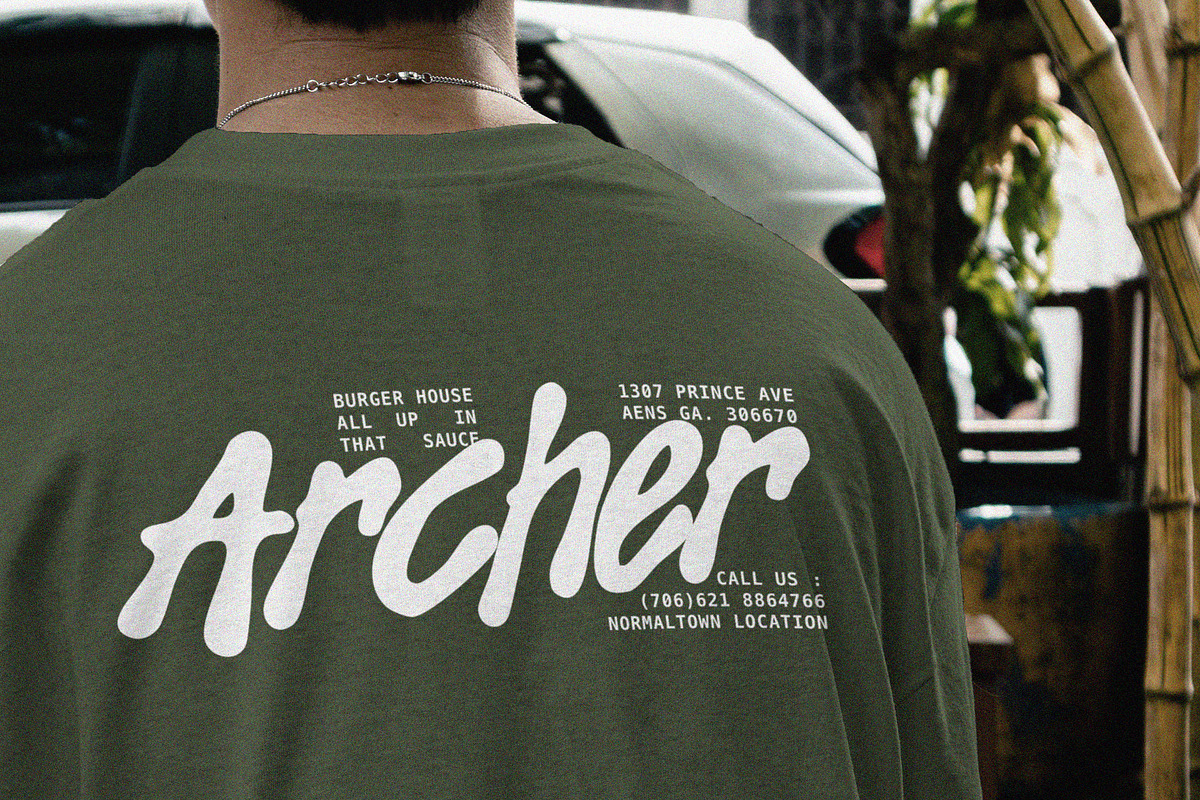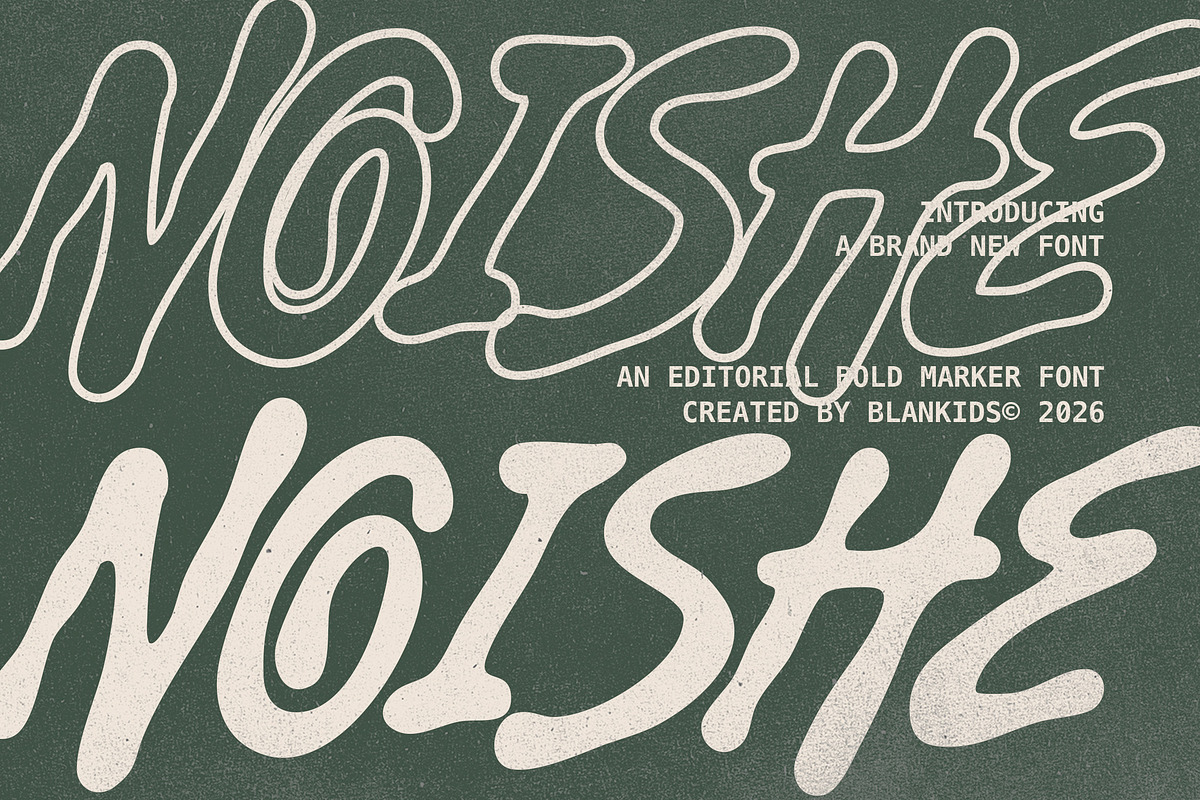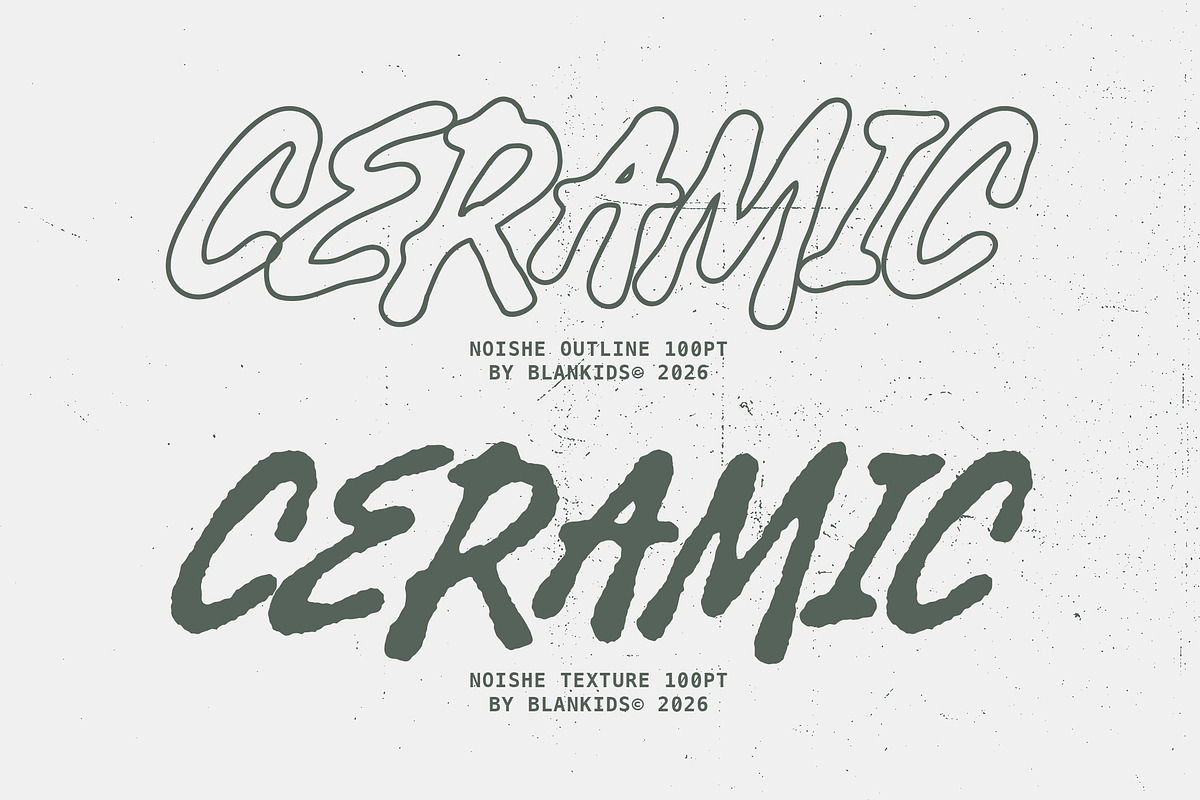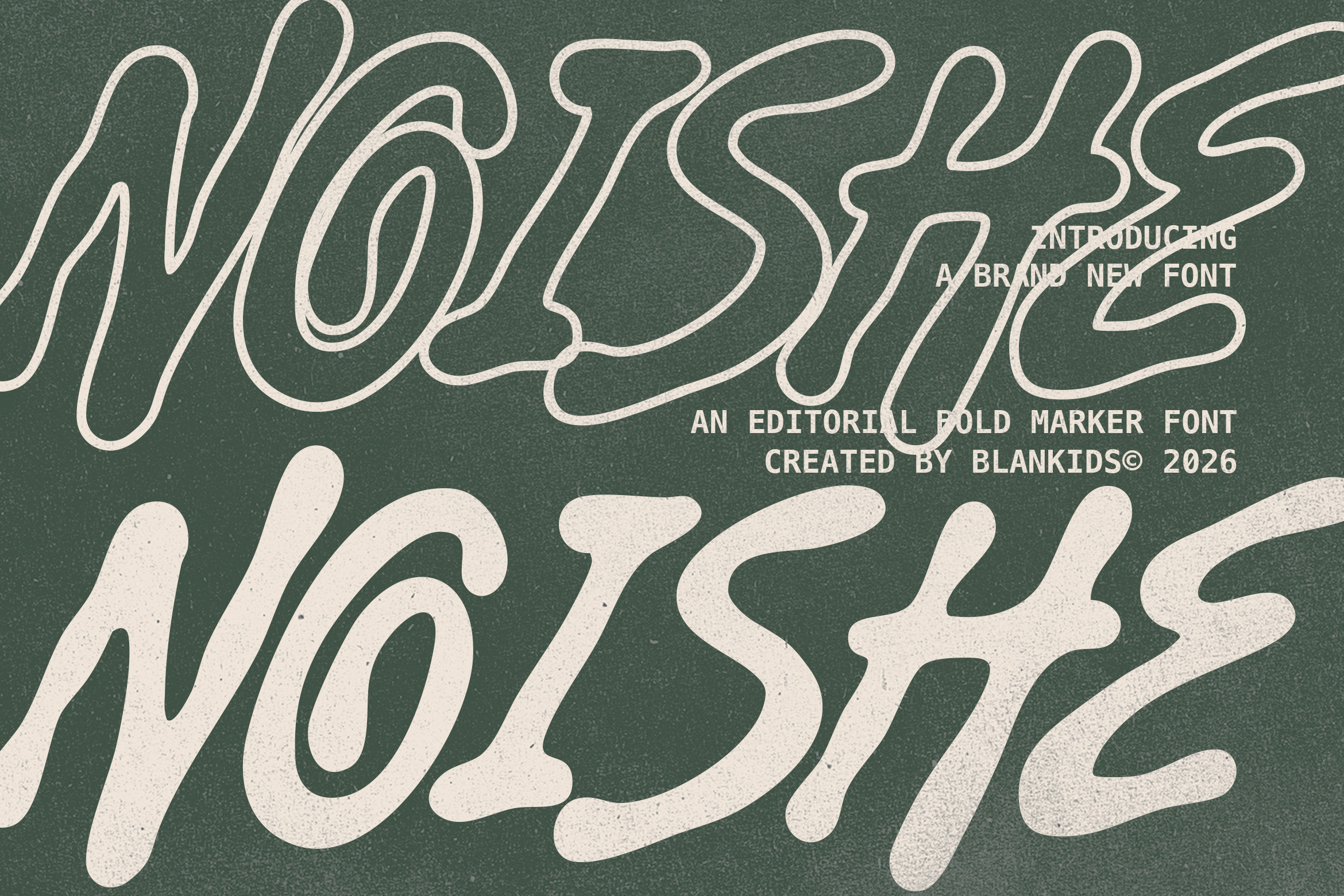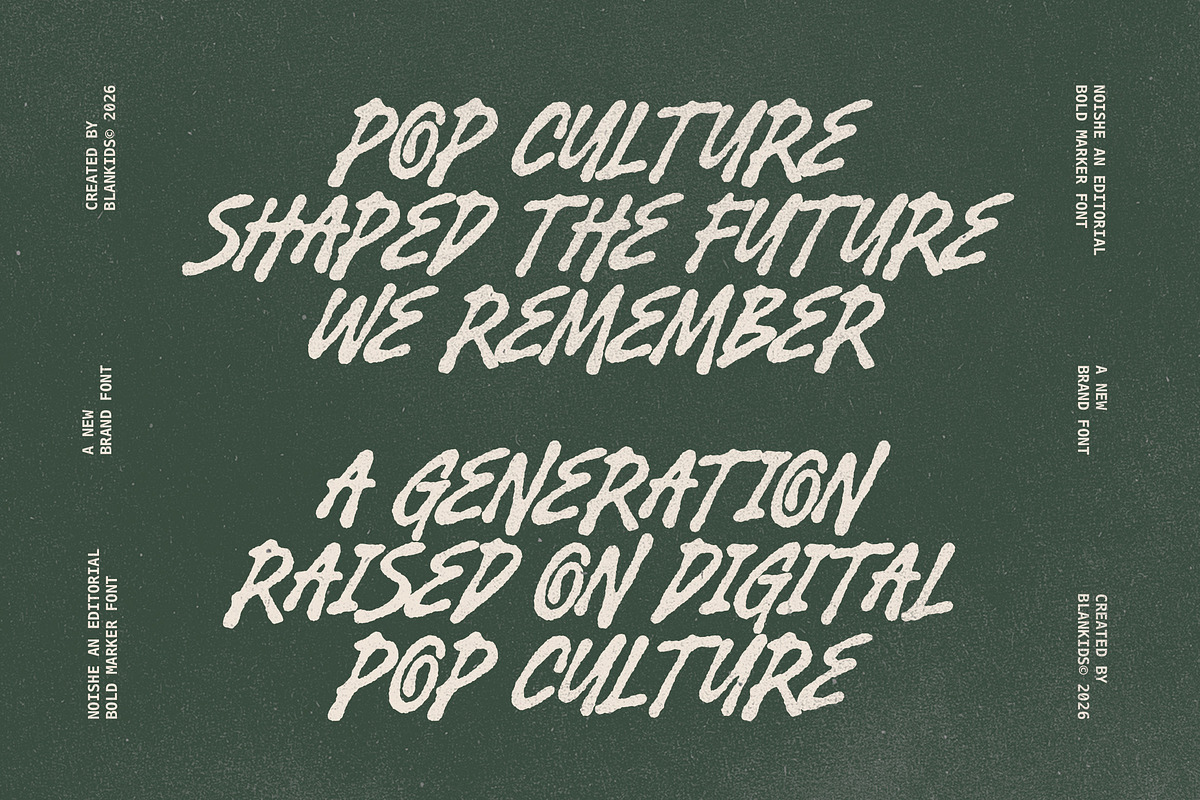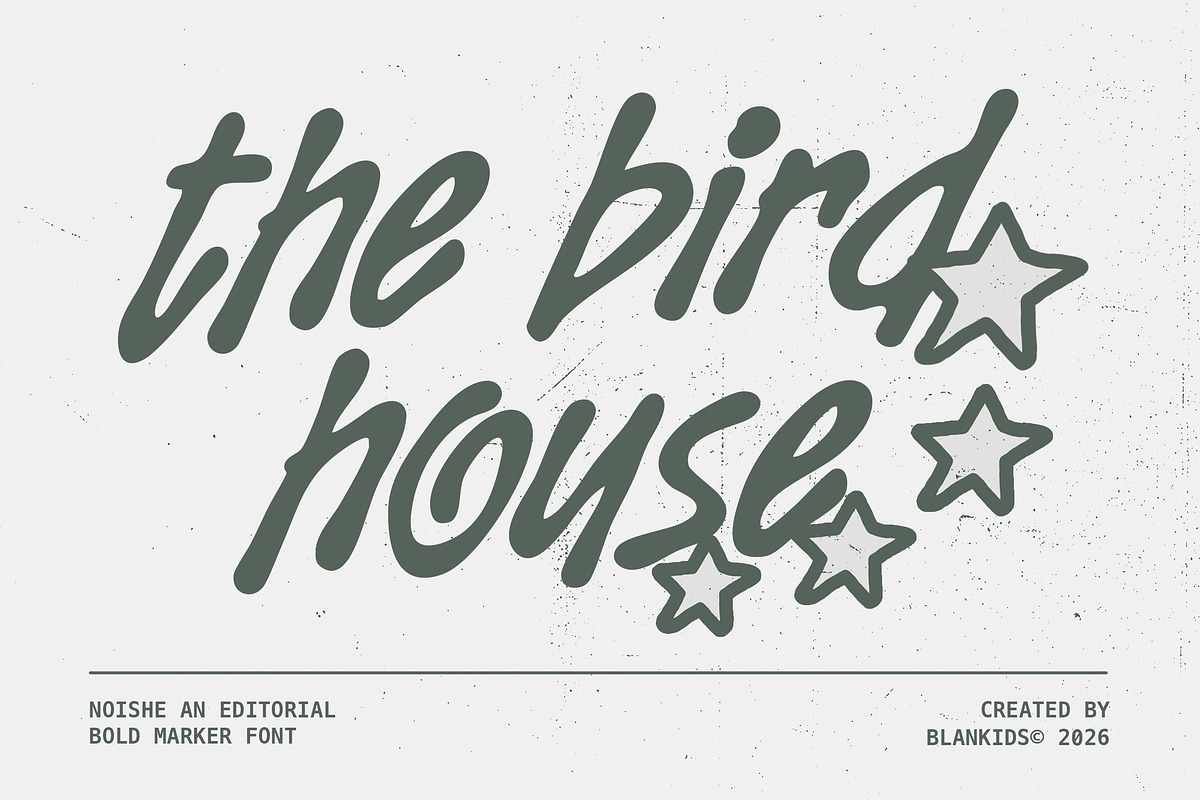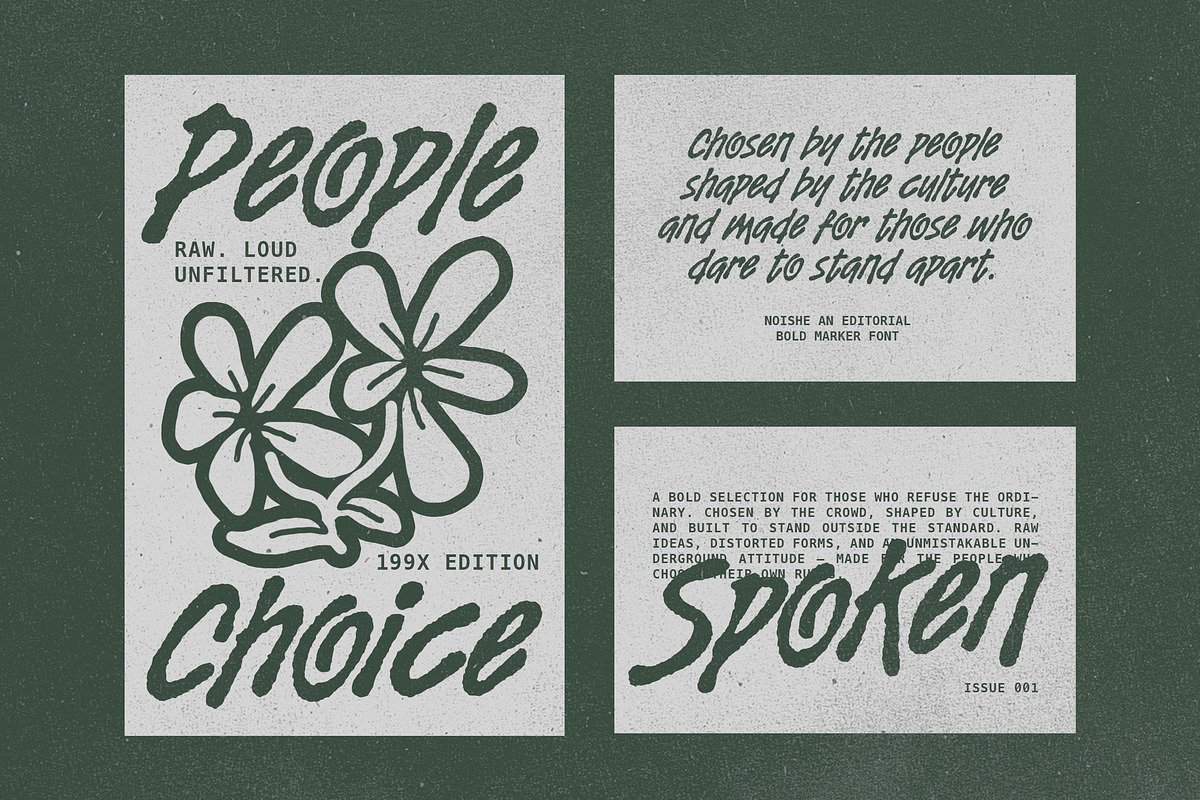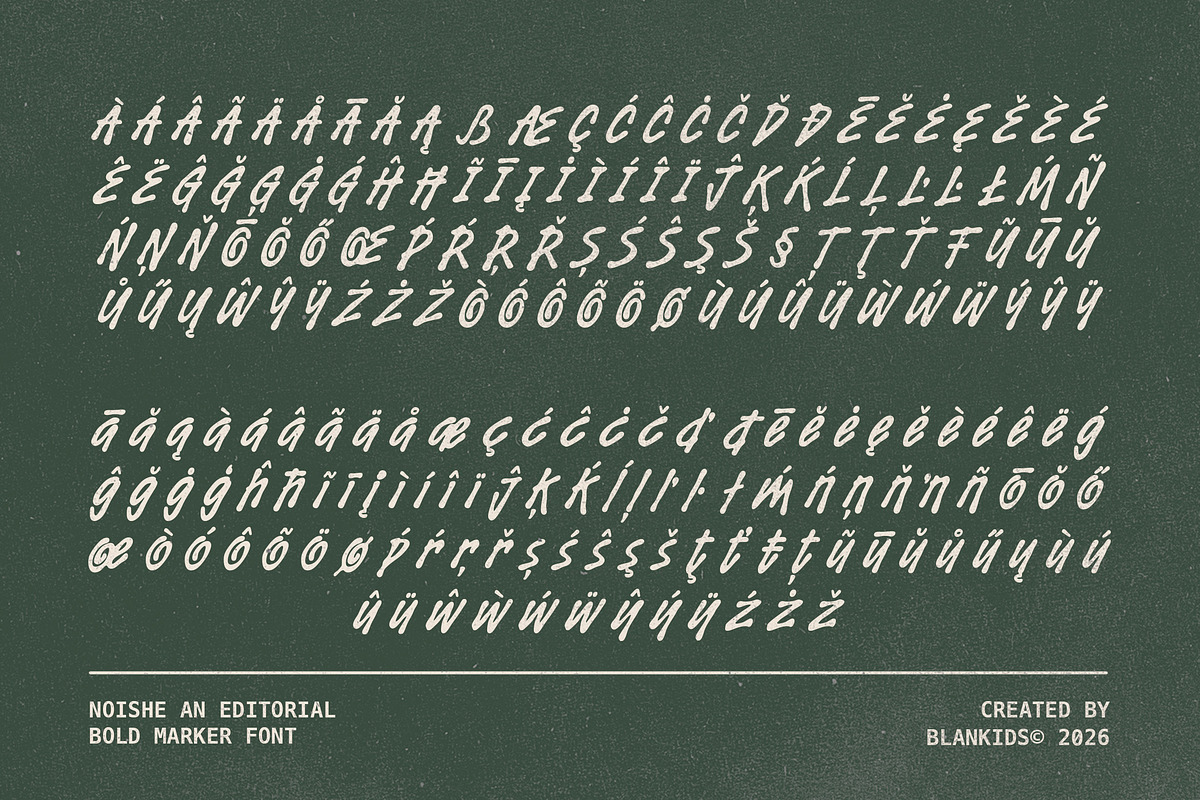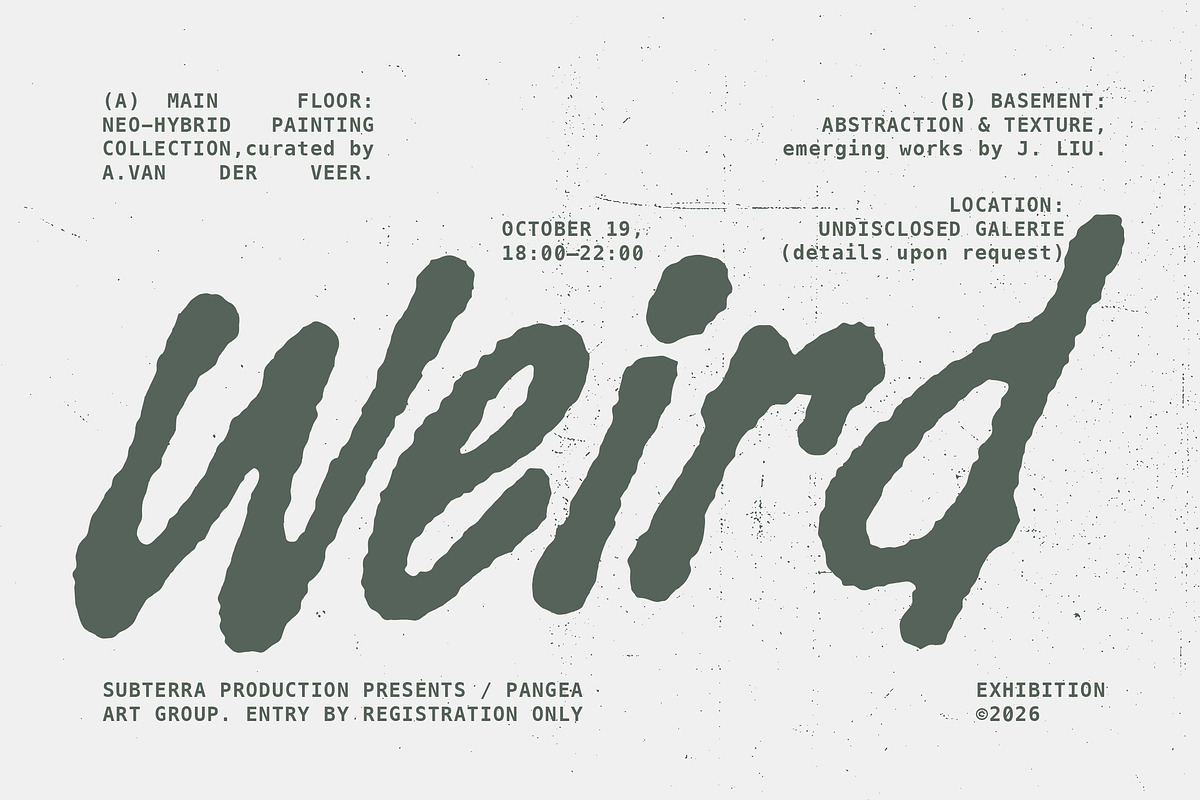
Noishe - Editorial Bold Marker Font
NOISHE — Editorial Bold Marker Font
NOISHE is a bold marker typeface designed to capture a raw, expressive, and authentic analog feel. Built with high-impact strokes and a natural hand-drawn texture, it delivers an energetic, unpolished aesthetic that commands attention instantly.
Ideal for modern graphic design projects that demand a strong visual statement.
Best Suited For:
Editorial Layouts, Posters, & Magazine Covers
Apparel & Streetwear Branding
Music Album Covers & Event Flyers
Eye-Catching Display Headlines & Packaging
Character Set: Uppercase, Lowercase, Numerals, & Punctuation
Authentic Texture: High-detail marker stroke finish